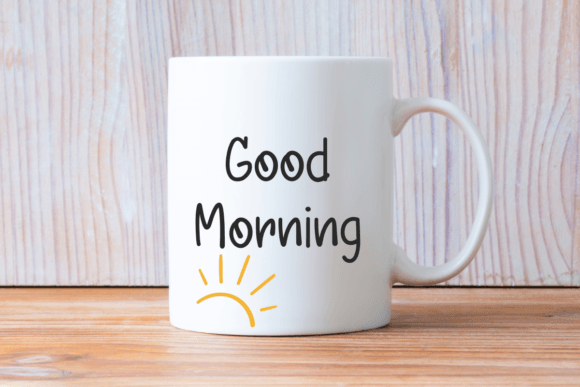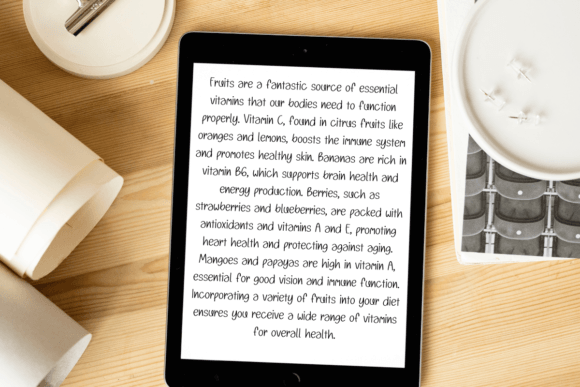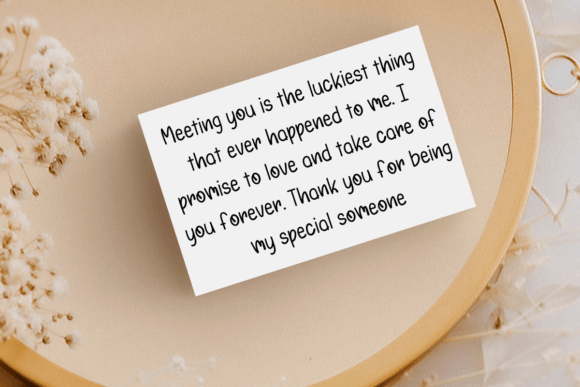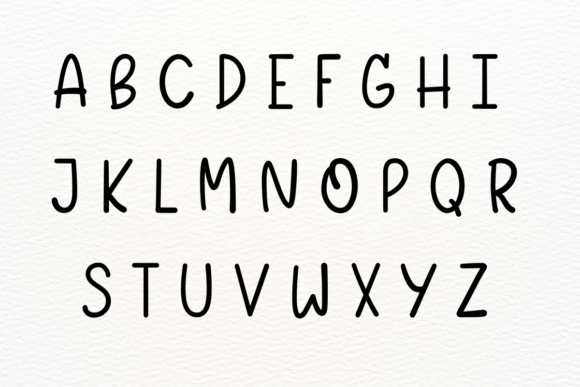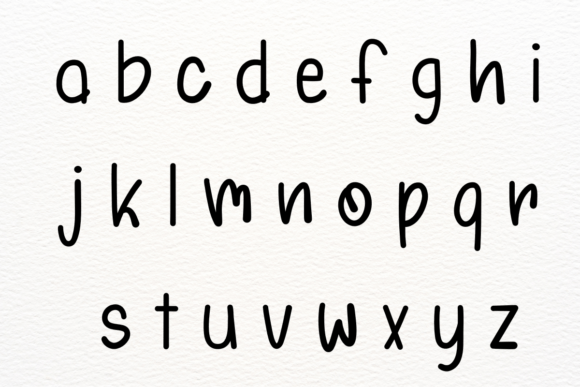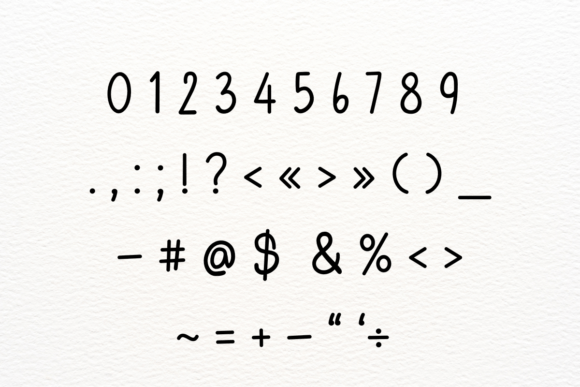
Introduction to Chillout Summer Font
As you sit by the pool, sipping your favorite summer drink, you can’t help but feel the urge to create something that captures the essence of this laid-back season. You reach for your laptop, and the perfect design resource comes to mind – the Chillout Summer Font. This captivating handwritten font exudes a relaxed and breezy vibe, perfect for adding a touch of summer charm to your designs. With its casual and flowing letterforms, this font brings a sense of warmth and leisure, making it ideal for invitations, greeting cards, social media graphics, and more.
Whether you’re working on a project with a transparent background or need a high-quality font for a free download, the Chillout Summer Font is an excellent choice. Its unique, handwritten feel ensures your creative project stands out from the crowd, and its value lies in its ability to evoke a sense of relaxation and freedom. As a designer, you know how valuable it is to have a versatile font that can adapt to any design style, and the Chillout Summer Font is sure to become a staple in your design arsenal.
Key Features of Chillout Summer Font
- Unique, hand-drawn design ideal for creative projects and design resources.
- Features a transparent background, allowing for easy customization and flexibility in design applications.
- High-resolution design with a resolution of 300 DPI, ensuring crisp and clear text rendering in print and digital applications.
- Perfect for summer-themed projects, events, and marketing materials, evoking a relaxed and carefree atmosphere.
Honest Review: Chillout Summer Font
I recently had the chance to work with the Chillout Summer Font in one of my design projects, and I’m excited to share my honest review.
What works well: ✨ The font is perfect for creative projects that require a laid-back, beachy vibe. The high-quality design and crisp lines make it a great addition to any design resource. I also appreciate that it’s available for free download, making it a valuable resource for designers on a budget.
- The font is fully scalable, ensuring that it looks great in small and large sizes.
Limitations: ⚠️ While the font is high-quality, it’s not as versatile as some other fonts on the market. It’s best suited for projects that require a specific beachy or summer vibe. Additionally, some users may find the font to be a bit too playful for more formal design projects.
Overall, I’m impressed with the Chillout Summer Font. It’s a great addition to any design resource and is perfect for creative projects that require a laid-back vibe. If you’re looking for a fun and playful font, I highly recommend giving it a try.
The Chillout Summer Font is ideal for use in creative projects, such as social media graphics, blog posts, and marketing materials. The font’s transparent background and high-quality design make it perfect for use in a variety of applications, from digital to print.
Does the Chillout Summer Font have a transparent background?
Yes, the Chillout Summer Font has a transparent background, making it perfect for use on images with a background. You can easily place the font on top of any image or design without worrying about a distracting background.
Is the Chillout Summer Font a high-quality design resource?
Yes, the Chillout Summer Font is a high-quality design resource that is carefully crafted to provide a unique and creative touch to your projects. It’s perfect for designers who want to add a fresh and modern feel to their designs.